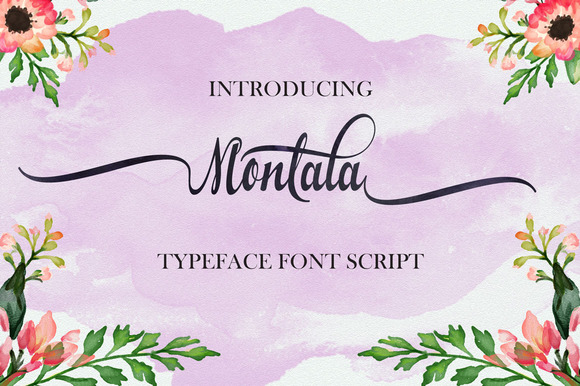
Introducing Montala Script Font, a breathtakingly beautiful and meticulously crafted script font that will undoubtedly elevate your designs to new heights. Created by the talented team at Groens Studio, this font exudes elegance and sophistication, making it the perfect choice for a wide range of personalized designs.
With its intricate and flowing strokes, Montala Script Font adds a touch of charm and grace to any project. Whether you're creating wedding invitations, branding materials, or social media graphics, this font will captivate your audience and leave a lasting impression. Its versatility allows it to seamlessly adapt to various design styles, making it a must-have tool for both beginners and seasoned designers.
One of the most striking features of Montala Script Font is its emotional appeal. This font effortlessly evokes feelings of romance, beauty, and creativity, bringing your words to life and capturing the hearts of your audience. Every character is carefully handcrafted, ensuring a unique and authentic touch that sets your designs apart from the rest.
Montala Script Font is not just a font; it's a work of art. Its attention to detail and impeccable craftsmanship make every letter a visual masterpiece. From its graceful ascenders to its elegantly tapered descenders, this font embodies the perfect balance between elegance and legibility.